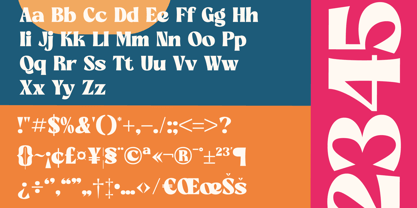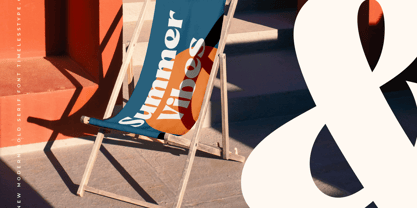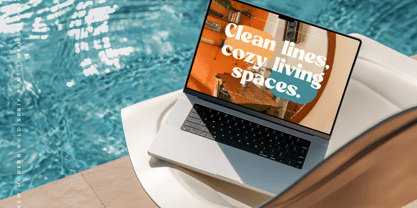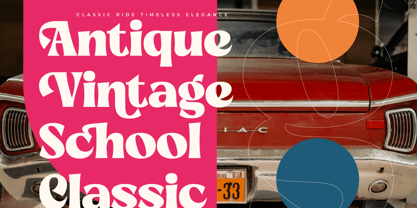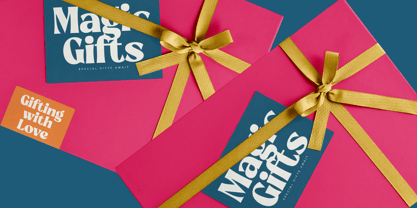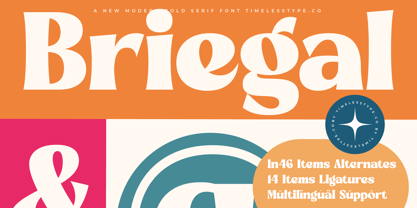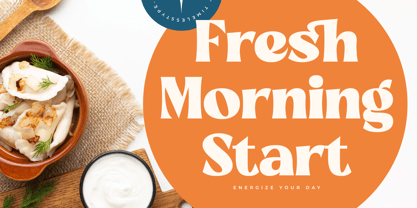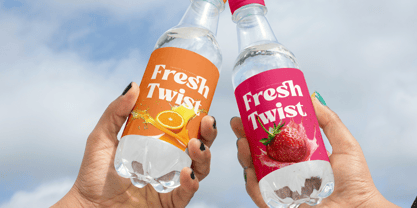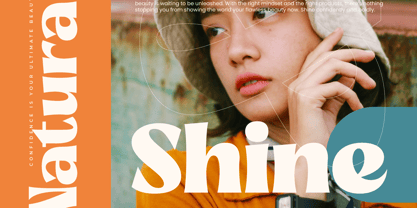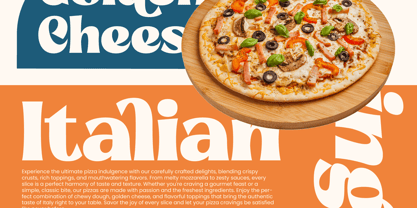
Briegal
The Briegal Font Family was designed by Heru Utama Putra and published by Timelesstype Studio. Briegal contains 2 styles and family package options. More about this family
Briegal - New Modern Bold Serif , from Timelesstype, Suitable for any projects such as: logos, branding projects, homeware designs, product packaging, mugs, quotes, posters, shopping bags, t-shirts, book covers, name card, invitation cards, greeting cards, label, photography, watermark, special events, and all your other luxury and beautiful projects that need a Luxury Serif taste.